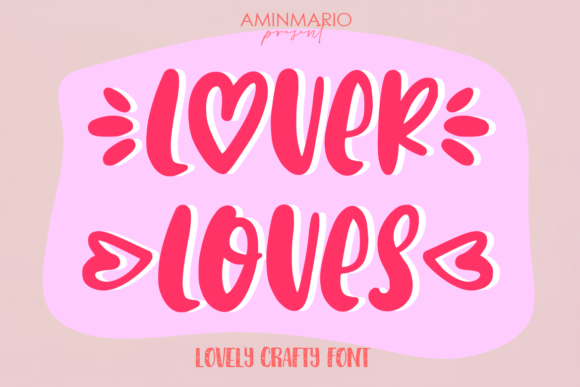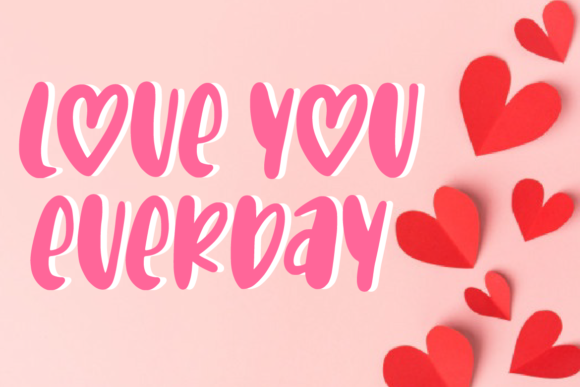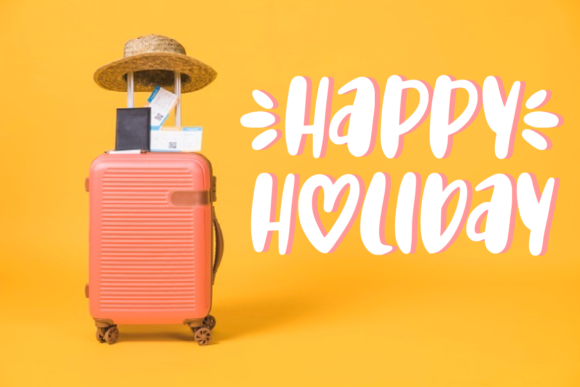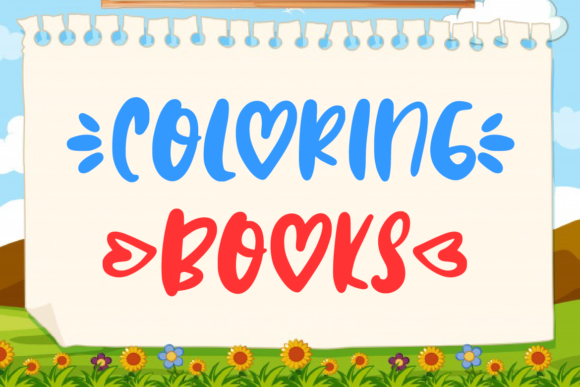
About Lover Loves Font
Lover Loves is a sweet and jolly crafting font. It is ideal for any crafting project, social media post, quotes, headers, decorations and much more.